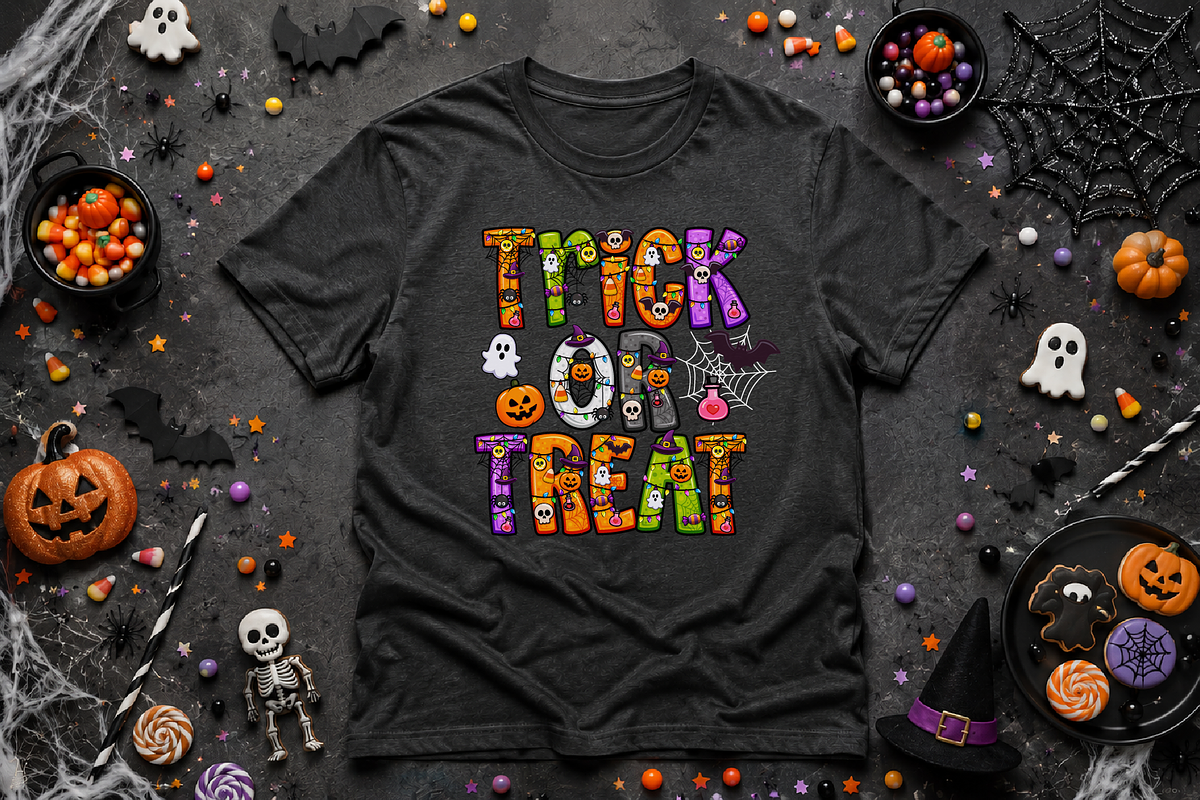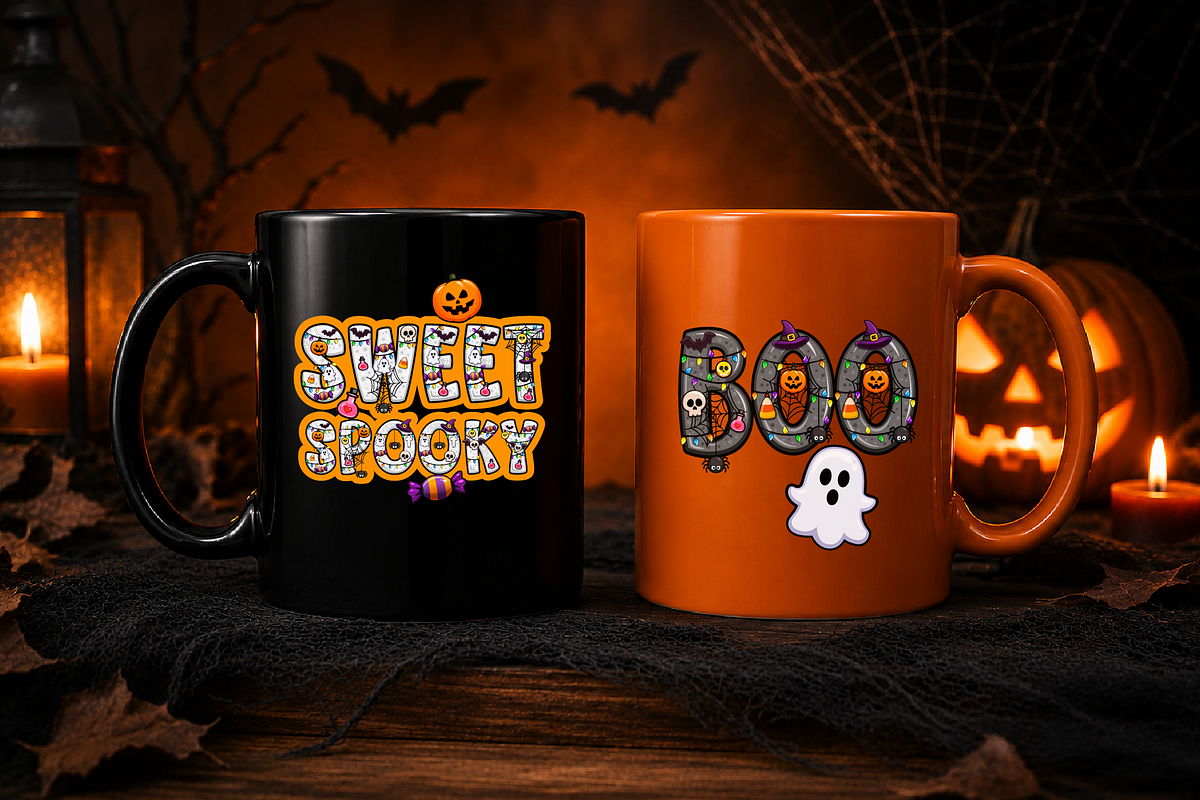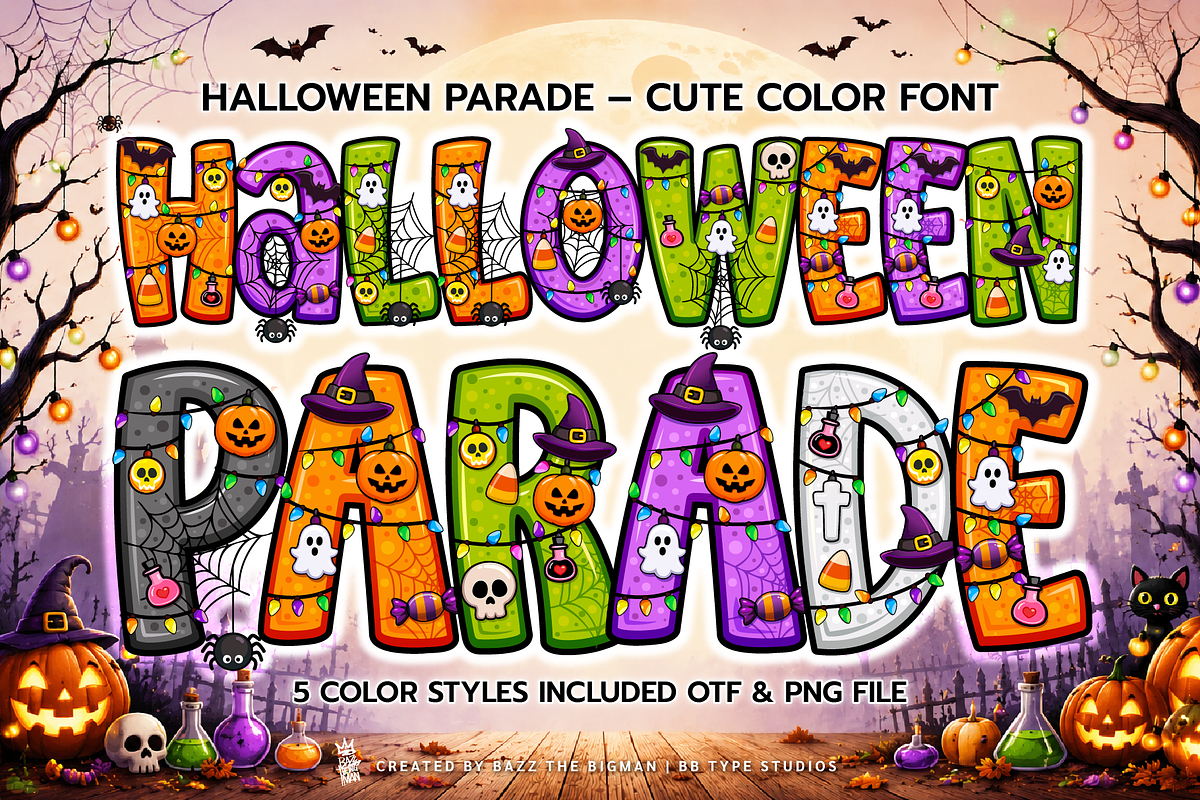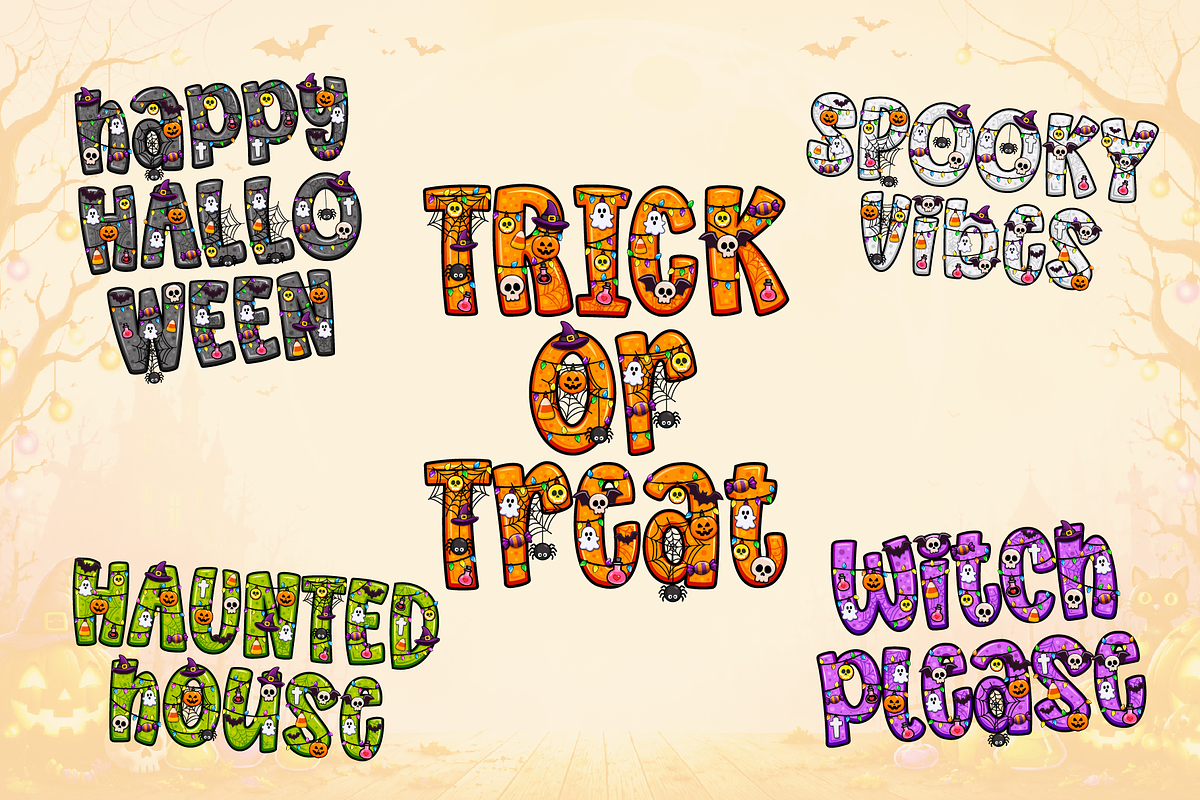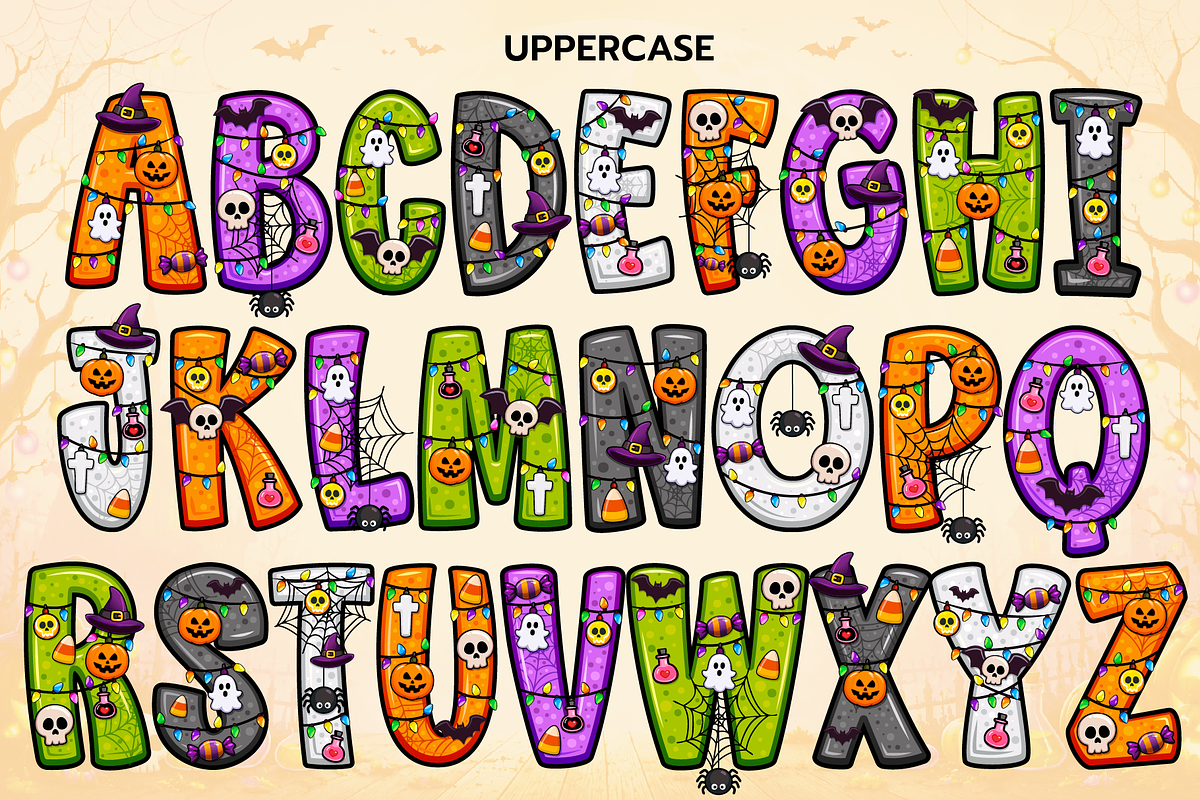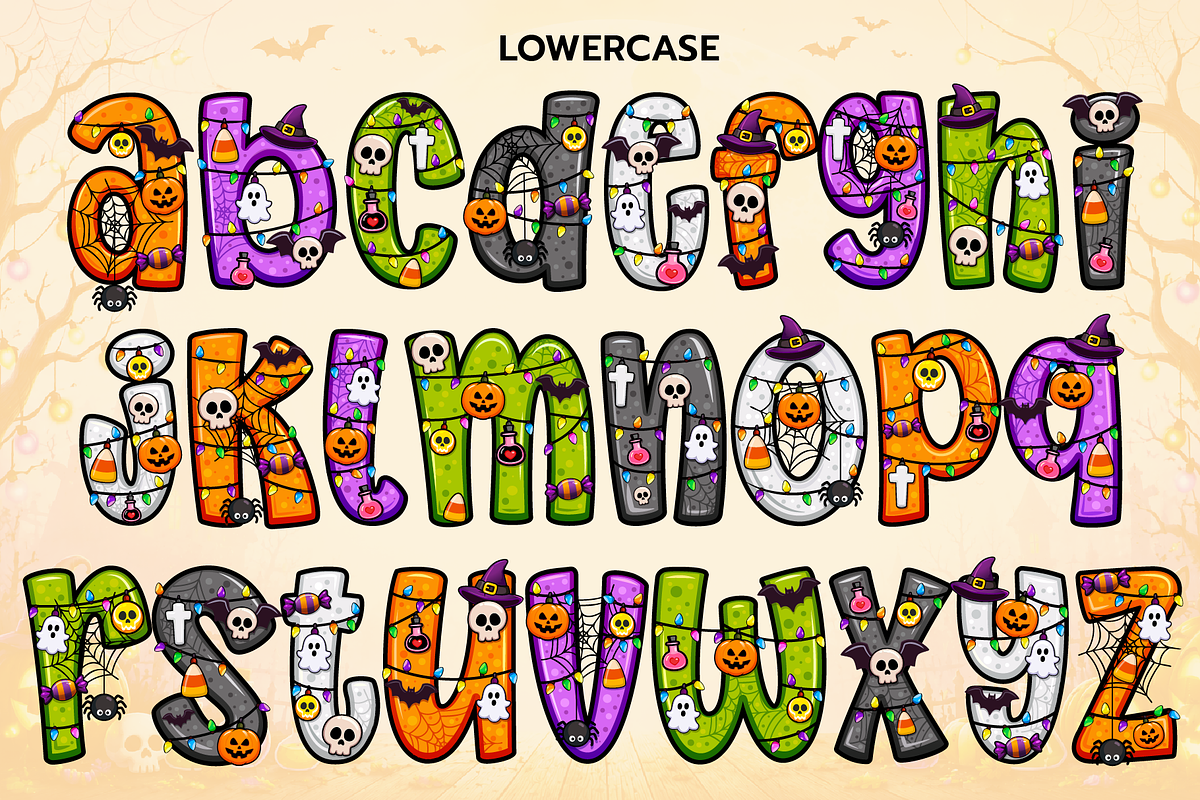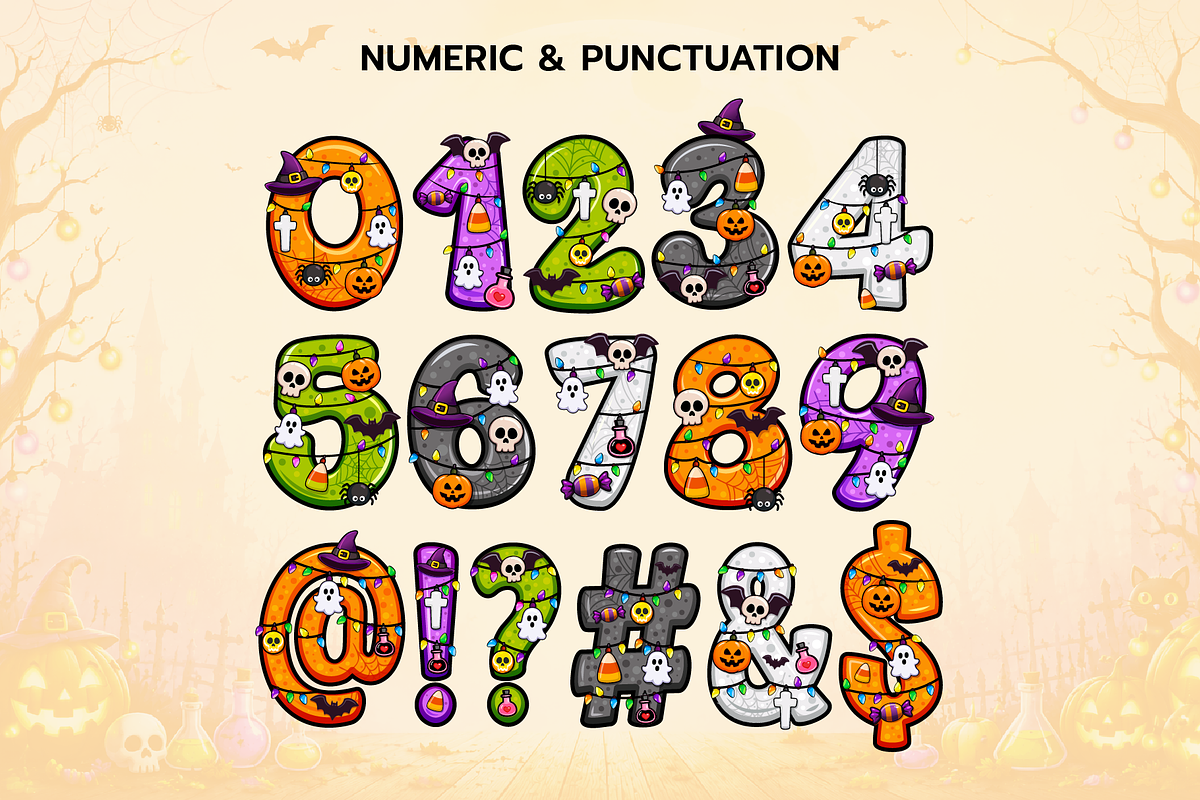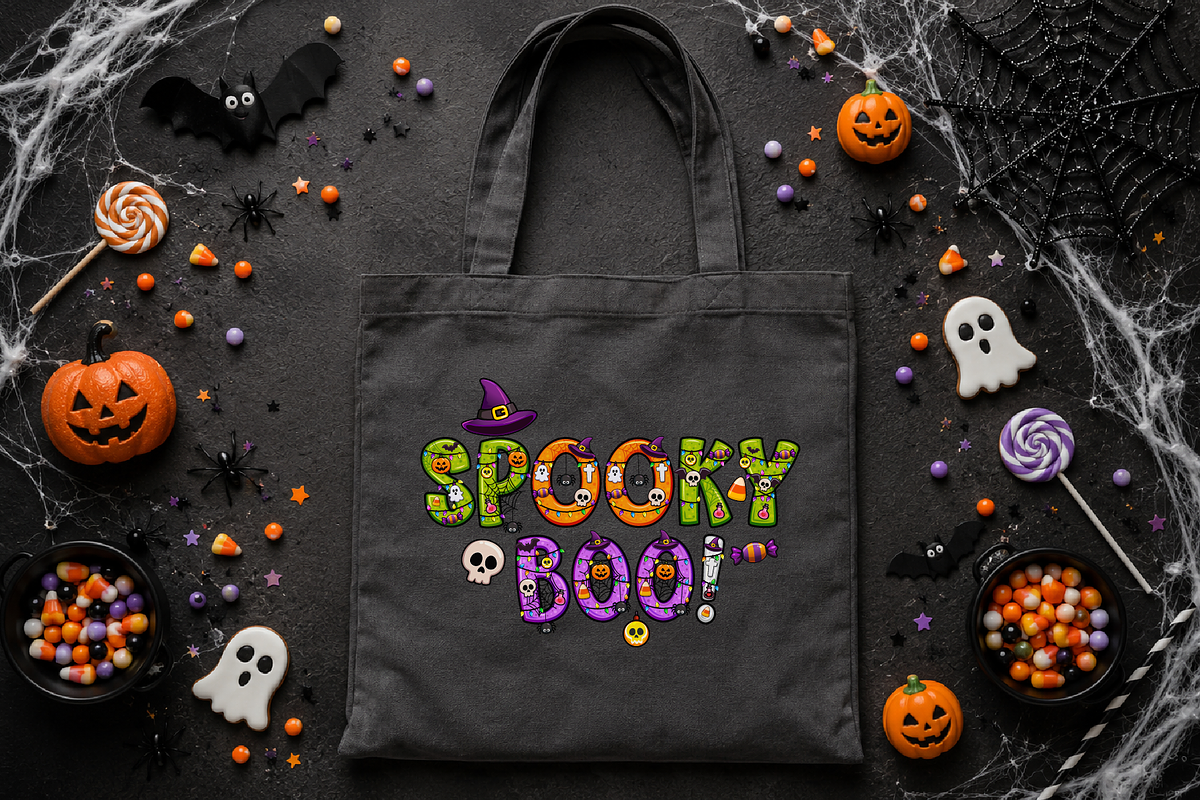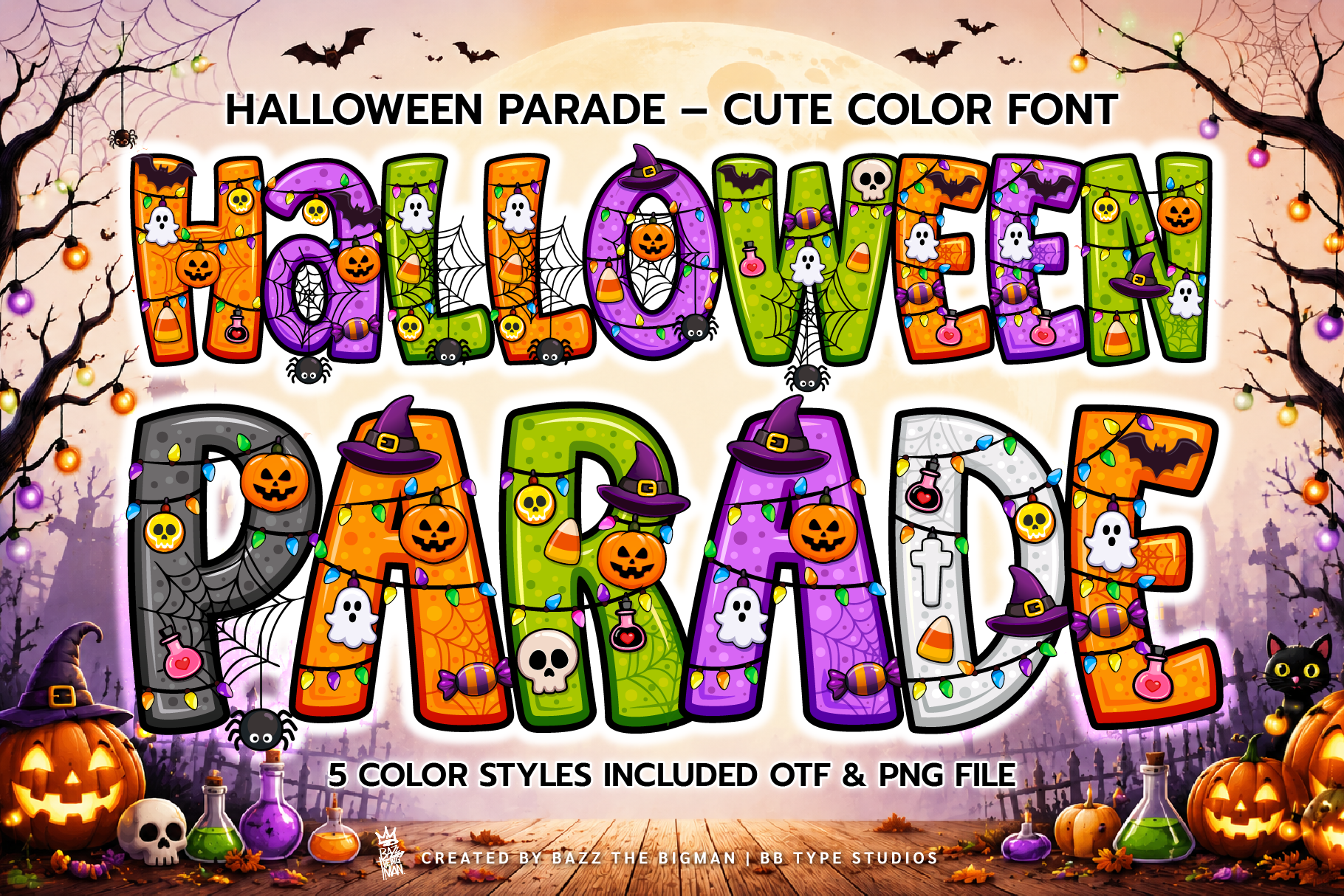
Halloween Parade - Color SVG Font
Introduce an enchanting blend of spookiness and cheer to your Halloween projects with the Halloween Parade font. This vivacious SVG Color Font infuses elements of adorableness alongside a classic Halloween spirit. Every letter is ornamentally graced with playful Halloween motifs - Pumpkins, ghosts, bats, spider webs, candy corn, witch hats, skulls, and vibrant string lights come together to form an engaging Halloween march. Boon for crafters, educators, event planners, and originals, the Halloween Parade font adds the right amount of holiday spirit to endeavors that demand an exciting and colorful Halloween ambiance.
5 Color Styles
** ✔ Uppercase (A–Z)**
** ✔ Lowercase (a–z)**
** ✔ Numbers (0–9)**
** ✔ Basic Symbols**